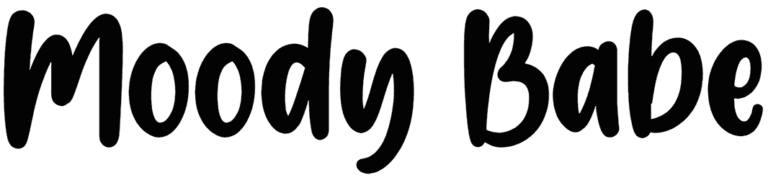
Little Kids Handwriting Font
With a unique and cute item like this childish handwritten font, you are able to adorn various happy designs. Little Kids Handwriting has a natural and quirky form that would convey a distinct vibe. Set this fun script font on your novel designs, such as games, school posters, apparel, or the like, and make them salient.